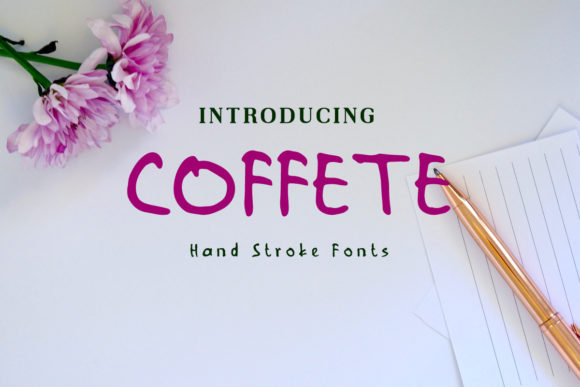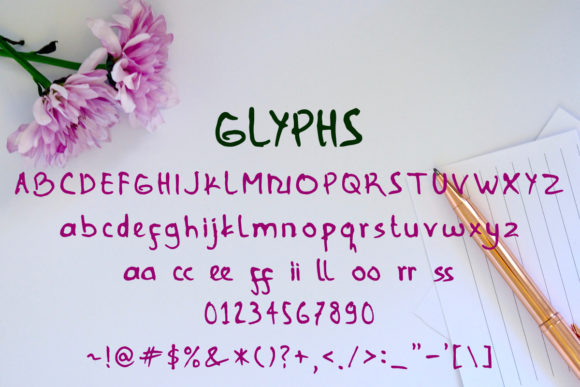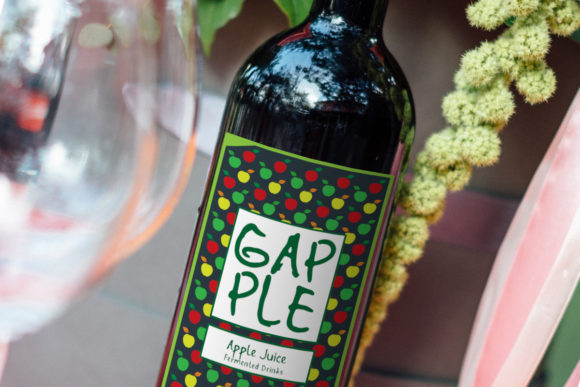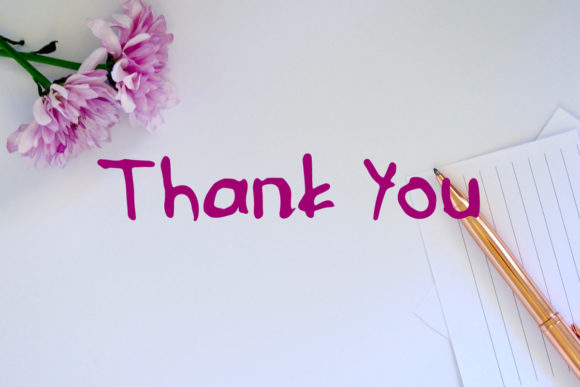
Coffete
About Coffete Font
Coffete is a cute and casual handwritten font with an incredibly friendly feel. Use this gorgeous and unique font to bring any DIY project to life!